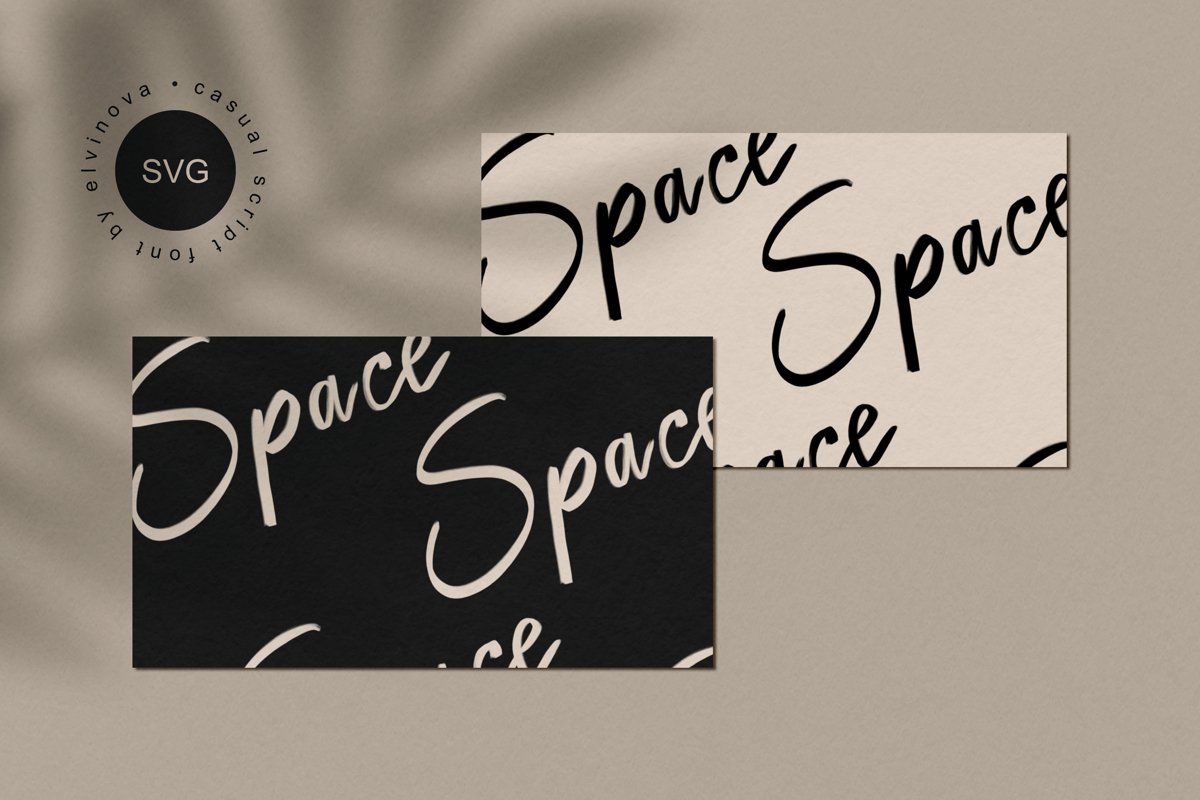
Space SVG Casual Font
Space
Introducing the casual SVG font. The script is perfectly suited to logo, branding, signature, packaging design, stationery, logo, website design and more.
All the letters are raster bitmap font - each letter has been painted a dozen of times.